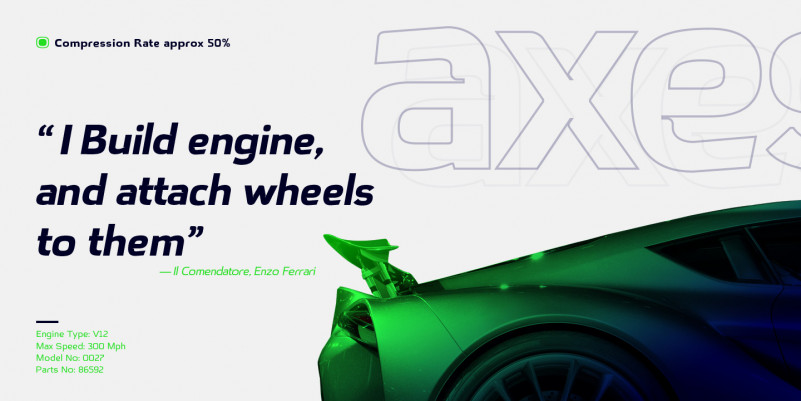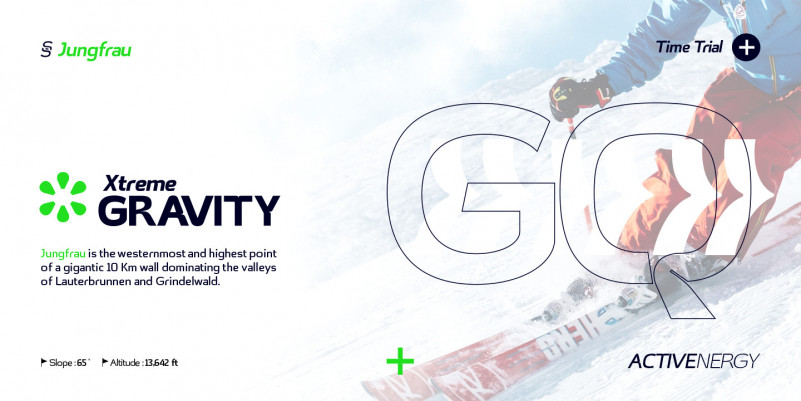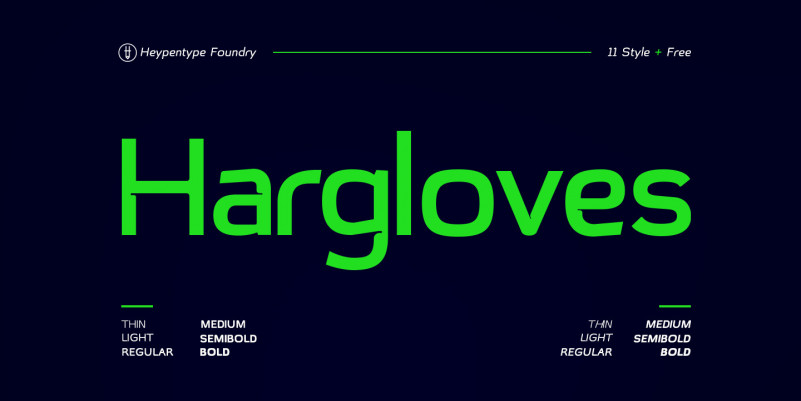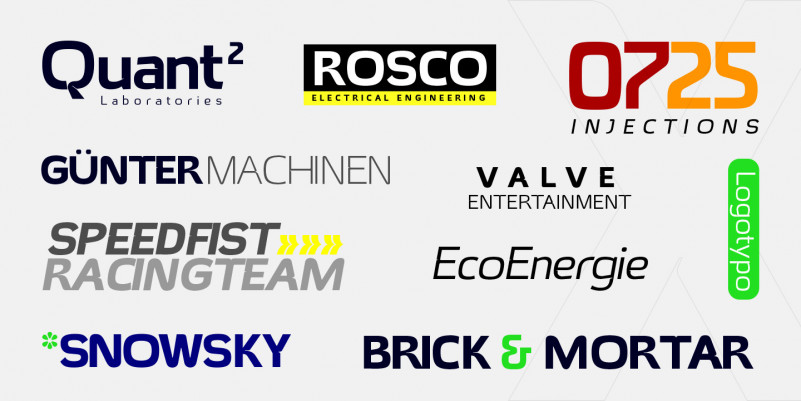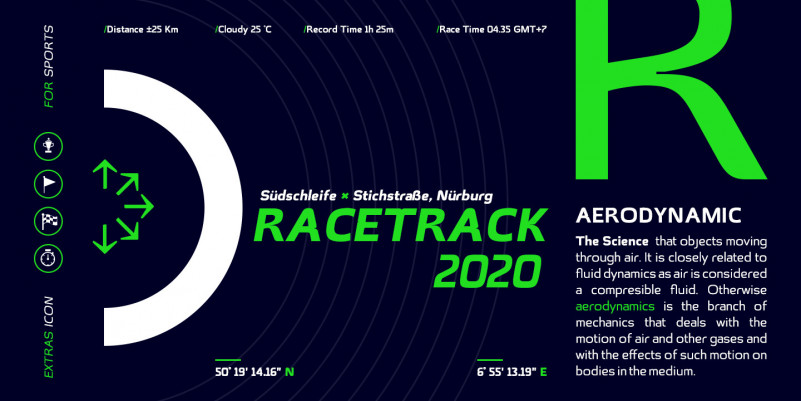
Hargloves Sans Font is a modern sans serif font family. The overall design shapes taken from advance engineering technology themes in various industries like motorsports, biotech, games, architecture, robotics, and aerospace tech. A distinct visual characteristic of this font family can be found on \’G\’,\’O\’,\’P\’,\’Q\’, and \’R\’ letter. Each glyph design combined a geometric shapes and stylished ink-traps with parabolic curves. The design of the glyph curves taken from fast corner often found on motorsports circuit, when diagonal glyph
shapes taken from aerodynamic in machine engineering and kinetic movement on sports.